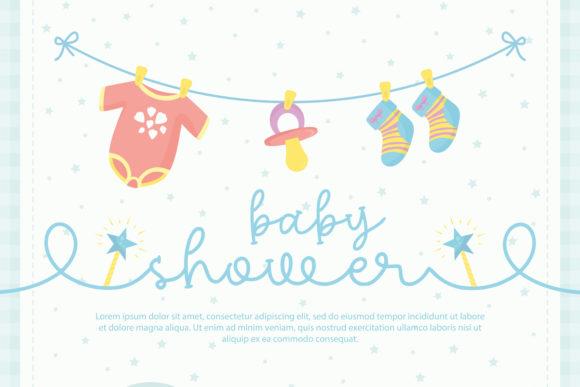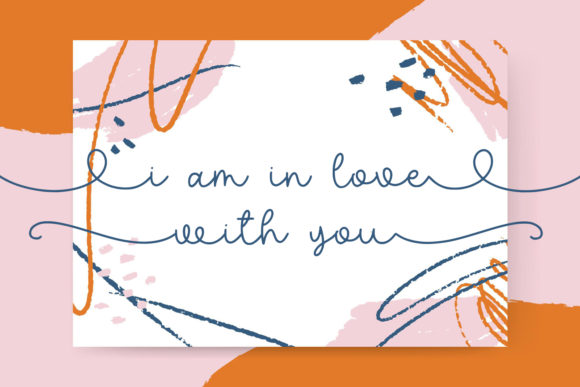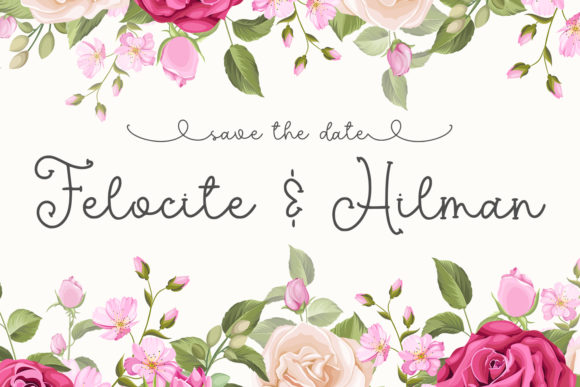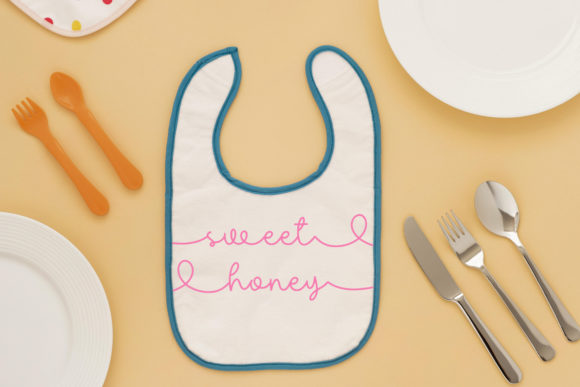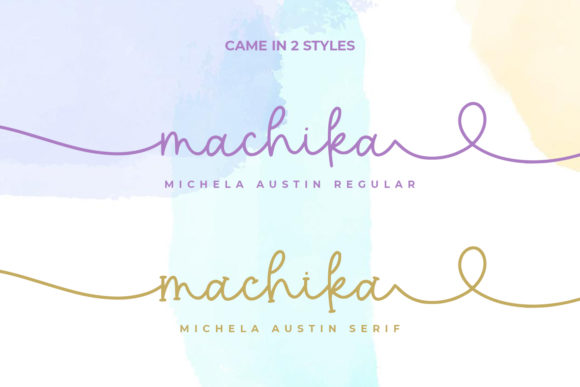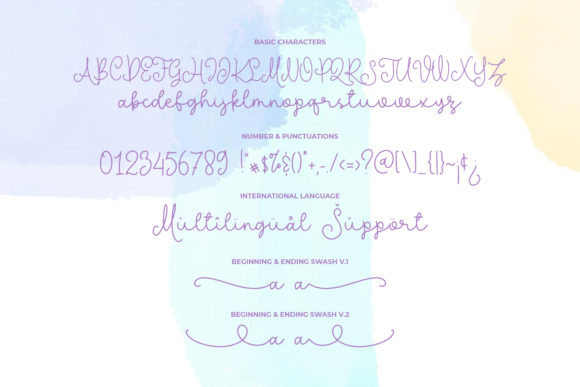
Introduction to Michela Austin Font
Have you ever stumbled upon a design that makes you go “wow”? For me, it’s the moment I see a beautifully crafted typography that elevates the entire project. It’s a moment of pure design magic, and it’s what makes the Michela Austin Font truly special.
This stylish and delicate font is a treasure trove for designers, offering a clean, thin, and smooth vibe that’s perfect for adding a touch of elegance to any design. With its PUA encoded features, you can access all the glyphs and swashes with ease, making it a valuable resource for any creative project. Whether you’re working on a logo, brochure, or website, the Michela Austin Font is sure to impress.
Key Features of Michela Austin Font
- Includes a transparent background, allowing for seamless integration into various design elements.
- Michela Austin Font is available in 5 font styles, each with its own distinct characteristics and nuances.
- Perfect for designers working on high-end creative projects, such as magazine layouts, branding materials, and more.
Honest Review: Michela Austin Font
As a designer, I’m always on the lookout for high-quality design resources that can elevate my creative projects. The Michela Austin Font caught my attention, and I decided to give it a try.
What works well: ✨ The Michela Austin Font is a beautiful, elegant script font that’s perfect for adding a touch of sophistication to your designs. It’s also available for free download, making it an excellent choice for designers on a budget. I appreciate the transparent background, which makes it easy to customize and integrate into my projects.
- ✨ Elegant and sophisticated design
However, there are a few limitations to consider: ⚠️ The font may not be suitable for bold or loud designs, as it’s a more refined and delicate script. Additionally, some users may find the font a bit too ornate for their taste.
Overall, I’m impressed with the Michela Austin Font. While it may not be perfect for every design project, it’s a great addition to any designer’s toolkit. With its elegant design and transparent background, it’s a valuable resource for any creative project.
Introduction to Michela Austin Font
Michela Austin Font is a high-quality design resource that offers a free download for creative projects. This versatile font is perfect for designers looking for a unique and elegant touch in their designs.
Tips for Getting the Most Out of Michela Austin Font
For optimal results, use Michela Austin Font on a transparent background to showcase its elegant design. This font is perfect for creating beautiful invitations, wedding cards, and other creative projects.
Common Use Cases for Michela Austin Font
Michela Austin Font is commonly used for wedding invitations, baby shower invitations, and other creative projects that require a touch of elegance and sophistication. The font’s high-quality design makes it a popular choice among designers and creatives.